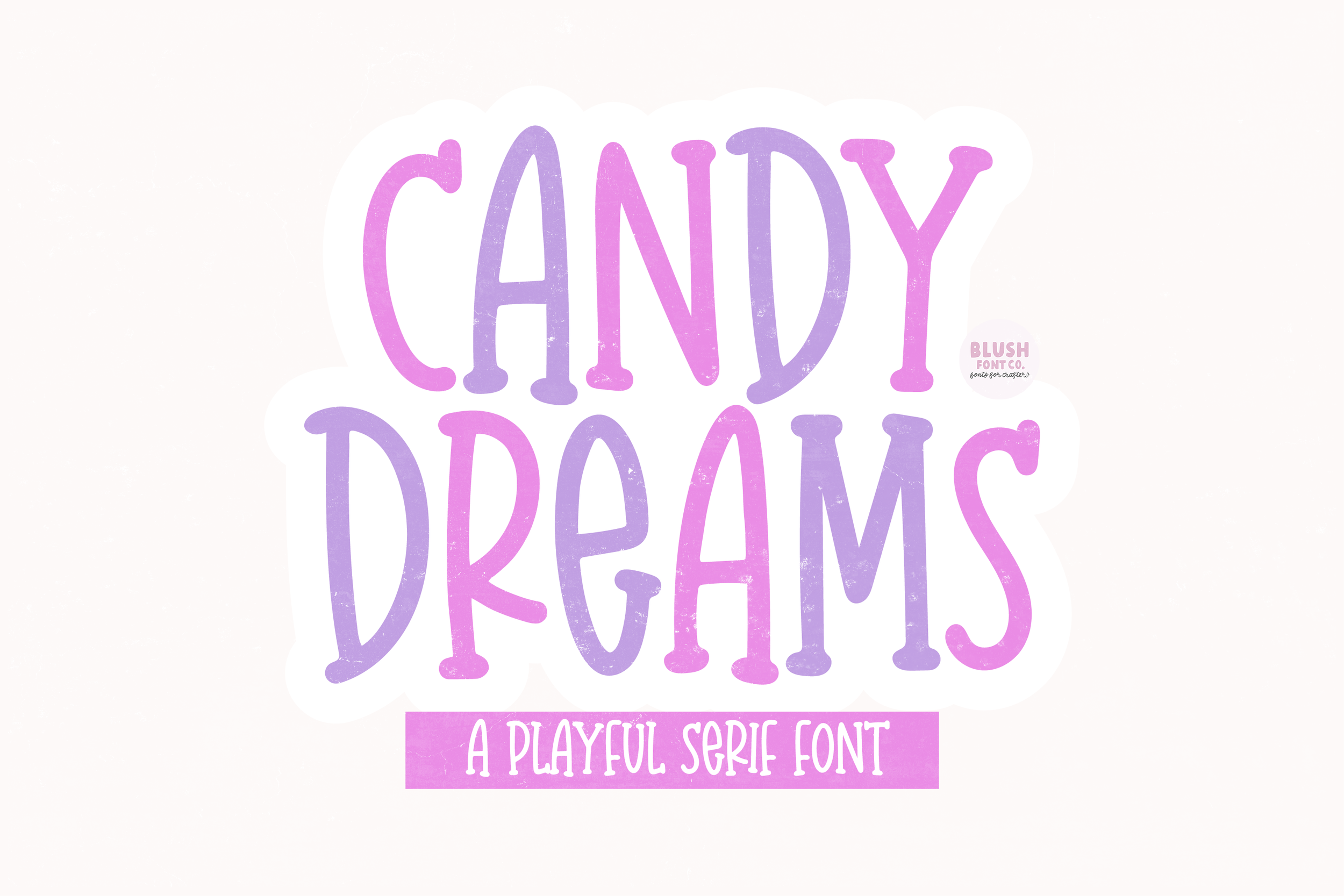
"Candy Dreams" playful serif brush font.
This font is a whimsical brush serif font that is perfect for social media or crafty projects. Use if for branding, crafts for decor, invitations, and more! This font includes all caps glyphs, numbers, and basic punctuation marks.